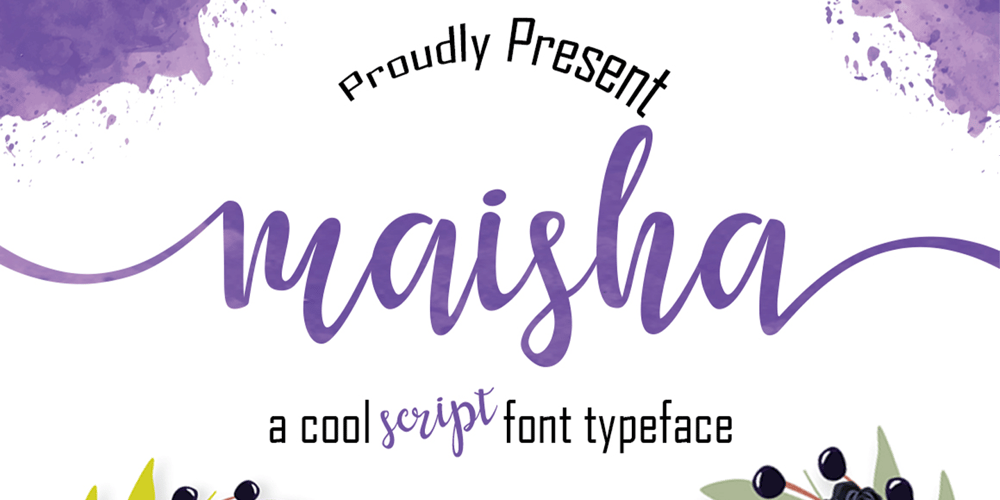
Maisha
Maisha font
Maisha Font Family was designed by Muhammad Rizal and published by MrLetters. Maisha contains 1 styles and family package options. IntroducingMaisha Script is a handwriting font that is modern and cool daat used in greeting cards, wedding invitations, business cards and also suitable for the purpose in the world of photography and more.Maisha Script comes with 339 glyphs alternate characters that can be accessed easily using programs such as Adobe Illustrator, Adobe InDesign, Adobe Photoshop Corel Draw version X, and Microsoft Word. Fonts have supported unicode PUA. so that all the alternative characters can be easily accessed in full by designers and other users.If you don’t have a program that supports OpenType features such as Adobe Illustrator and CorelDraw X Versions, you can access all the alternate glyphs using Font Book (Mac) or Character Map (Windows).If you have some questions about Maisha Script please send an inquiry email to hello.mrletters@gmail.com, Thank you for a layover.